Nostalgia from the early 2000s is dominating digital design trends. Everywhere you look, liquid chrome graphics, metallic textures, and cyber aesthetics are taking over social media feeds. Therefore, incorporating y2k futuristic fonts into your brand visual identity is a brilliant way to capture the attention of Gen Z audiences and trend-conscious consumers.
If you want your graphics to feel modern, edgy, and futuristic, understanding how to style retro-cyber typography effectively is essential.
1. Match Cyber Typography with Streetwear Merch
Y2K culture thrives in the fashion world. Heavy geometric letterforms with sharp, extended lines naturally fit street fashion. For instance, putting a bold cyber font on oversized hoodies, acid-wash T-shirts, or techwear accessories creates an instant high-fashion vibe. Furthermore, these thick shapes print cleanly during screen printing and vinyl transfers.
2. Pair High-Tech Display Fonts with Clean Sans Serifs
Because decorative cyber fonts carry a lot of visual weight, balance is crucial. Use your y2k futuristic fonts for main headline hooks, hero titles, or logo mark text. For supporting details, use a neutral, minimalist Sans Serif font. As a result, your overall layout remains clean, organized, and easy to read across mobile screens.
3. Use Vibrant Chrome and Neon Color Schemes
Y2K typography shines brightest when paired with bold color palettes. Try combining futuristic lettering with neon green, metallic silver, electric blue, or hot pink. In addition, adding subtle outer glow effects or chrome gradients will give your titles a striking high-tech aesthetic.
Recommended Fonts from Artisan Font
- Seratonin: A unique pixel script font that blends retro digital aesthetics with modern flowing lines.
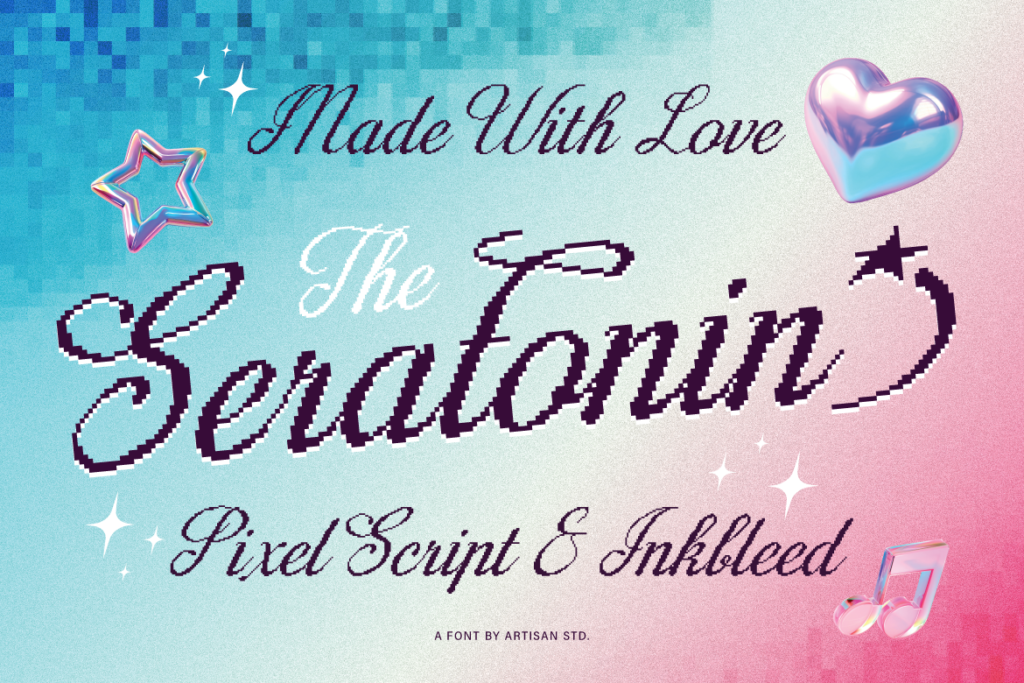
- Cantilos: A sleek, minimal font with sharp geometric accents for a clean futuristic finish.